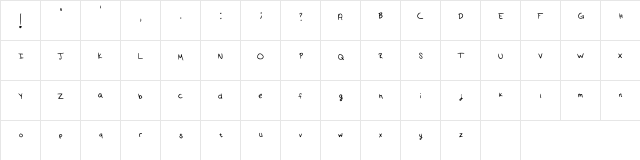
Cloudy Days Regular
Design Context for Cloudy Days Typeface
Cloudy Days is a composed and adaptable typeface that performs quietly and consistently across a wide range of design contexts.